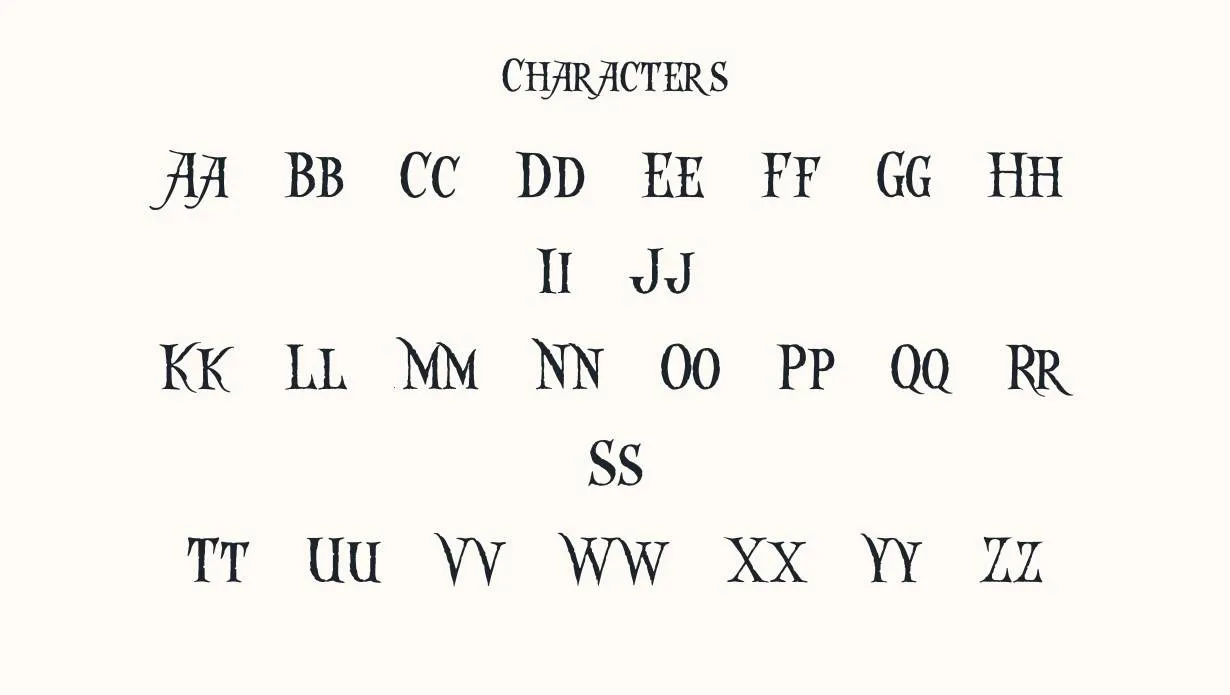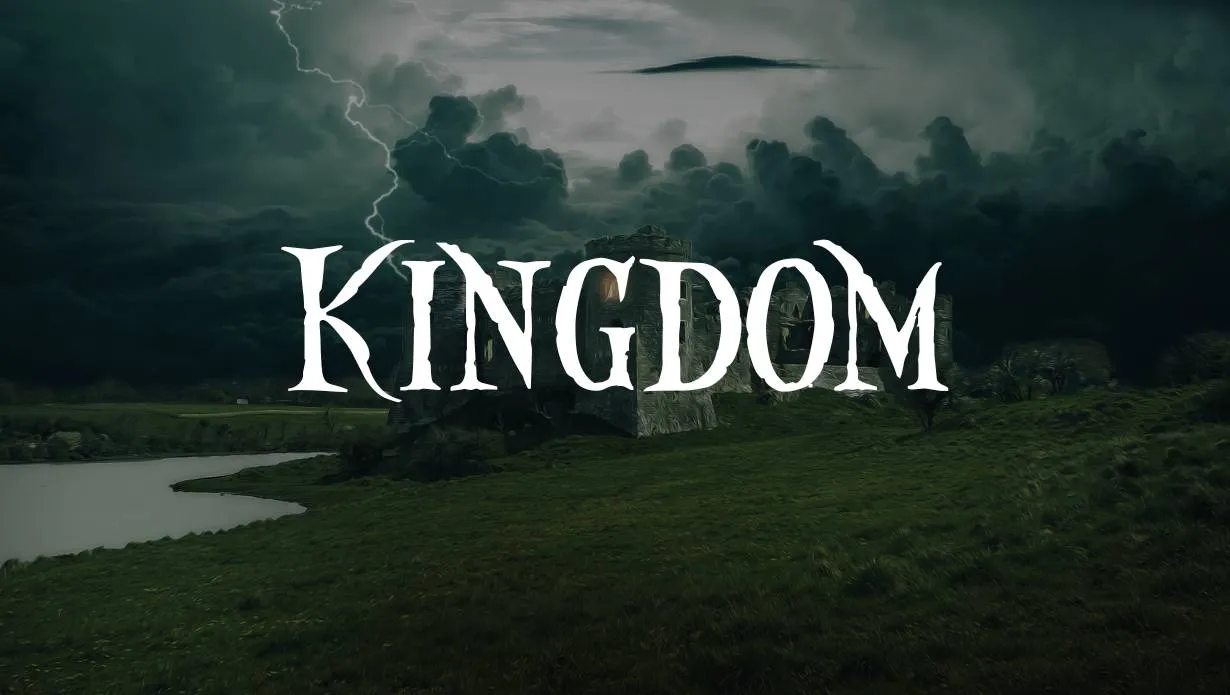
Hocus Pocus Font is inspired by a famous American movie. The designer of this fantastic is David Occhino. This typeface comprehends more than 153 characters and 142 glyphs which includes punctuations, special characters, numerals, uppercase alphabets, and lowercase alphabets.
| Name | Hocus Pocus Font |
| Designer | David Occhino |
- Hocus Pocus Regular
- Hocus Pocus Italic
- Hocus Pocus Bold Italic